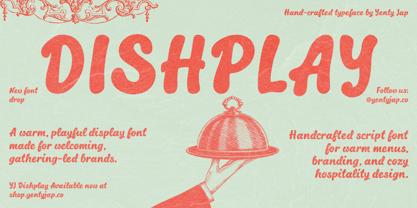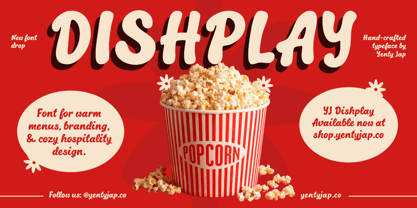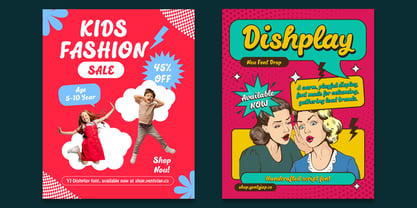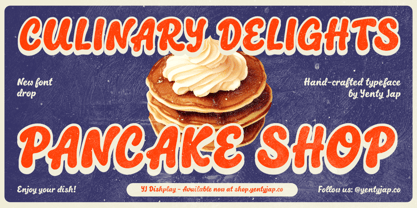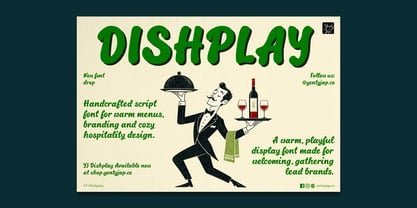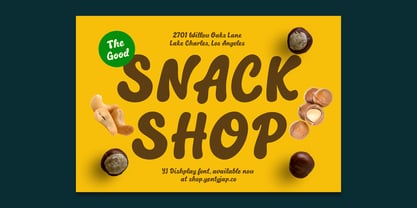
YJ Dishplay
Meet YJ Dishplay, a friendly display font that feels like pulling up a chair at a table already set for you. It’s bold enough to lead the room, soft enough to feel human, and warm enough to make even a menu header feel like a welcome hug.
Designed for brands built around gathering, shared food, shared stories, and shared space, YJ Dishplay brings a sense of hospitality into every letter. It’s the font for designers who believe typography should feel lived‑in — like the clink of glasses, the hum of conversation, or the comfort of a familiar café.
Use it for branding, menus, packaging, social media, signage, and any project where you want people to feel instantly at home. YJ Dishplay is expressive without shouting, playful without being silly, and crafted with the kind of care that makes communication feel like connection.
If your brand says “come in, stay awhile,” this font will say it with you.